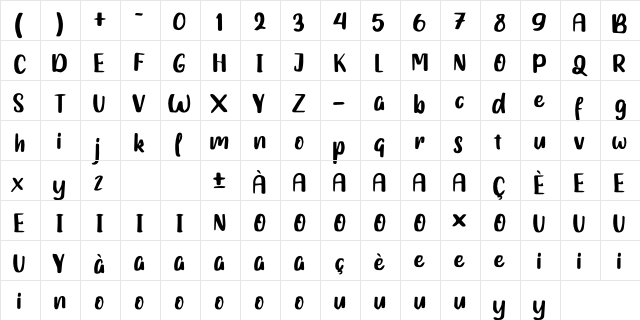
Blayer Charles Demo Regular
Design Context for Blayer Charles Demo Typeface
Blayer Charles Demo is a composed and adaptable typeface that performs quietly and consistently across a wide range of design contexts.